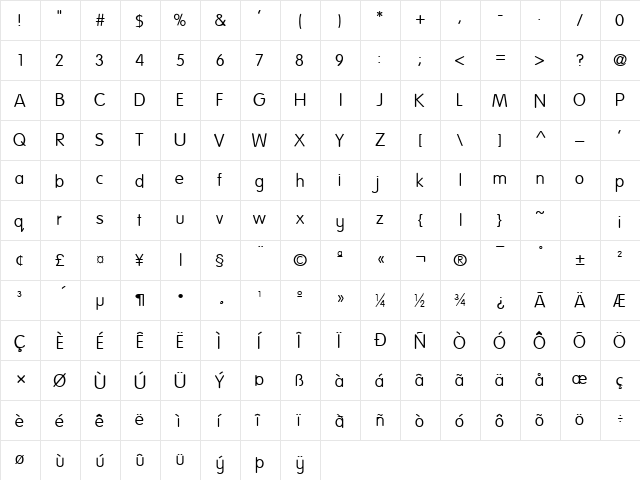
National First Font Normal Font Preview
National First Font Normal
Design Context for National First Font Typeface
National First Font takes a measured approach to typography — its balanced proportions and neutral character make it a reliable workhorse for both digital and print work.